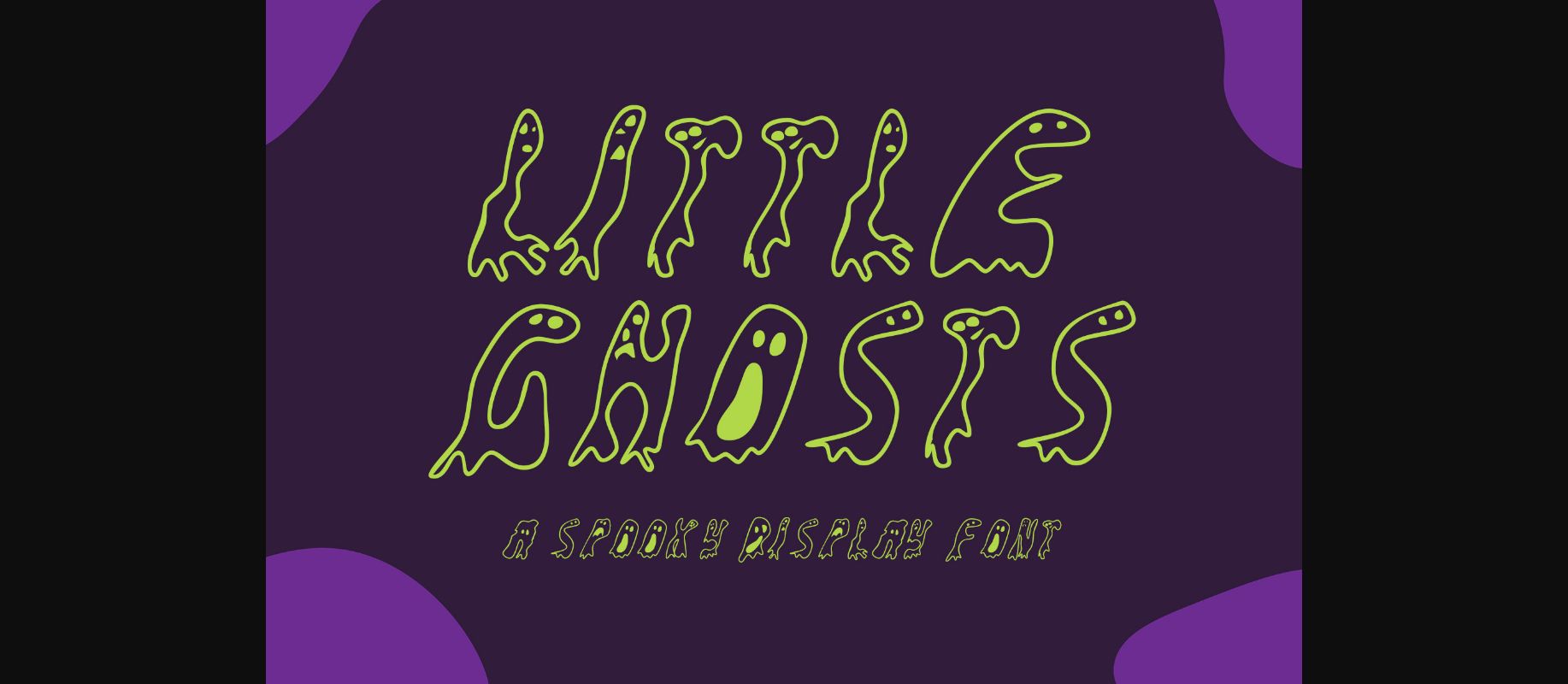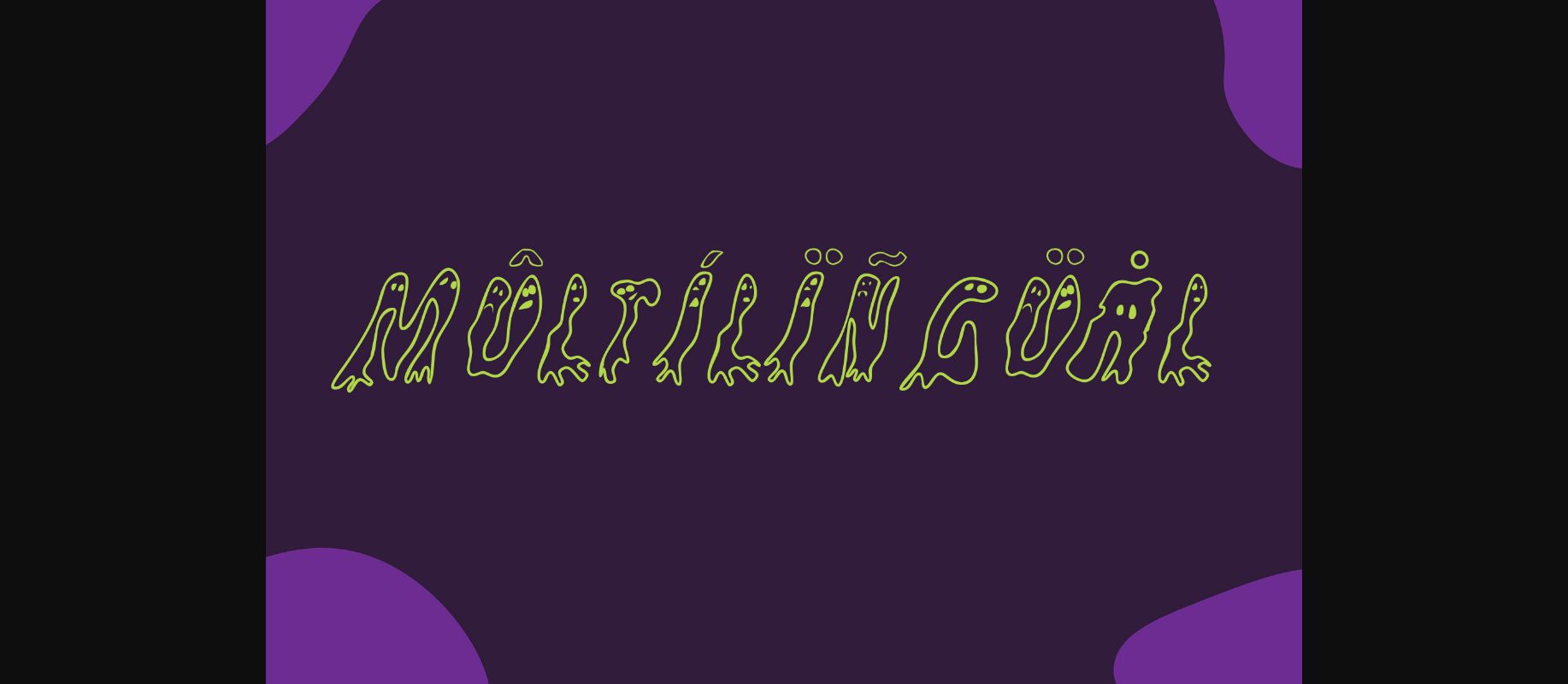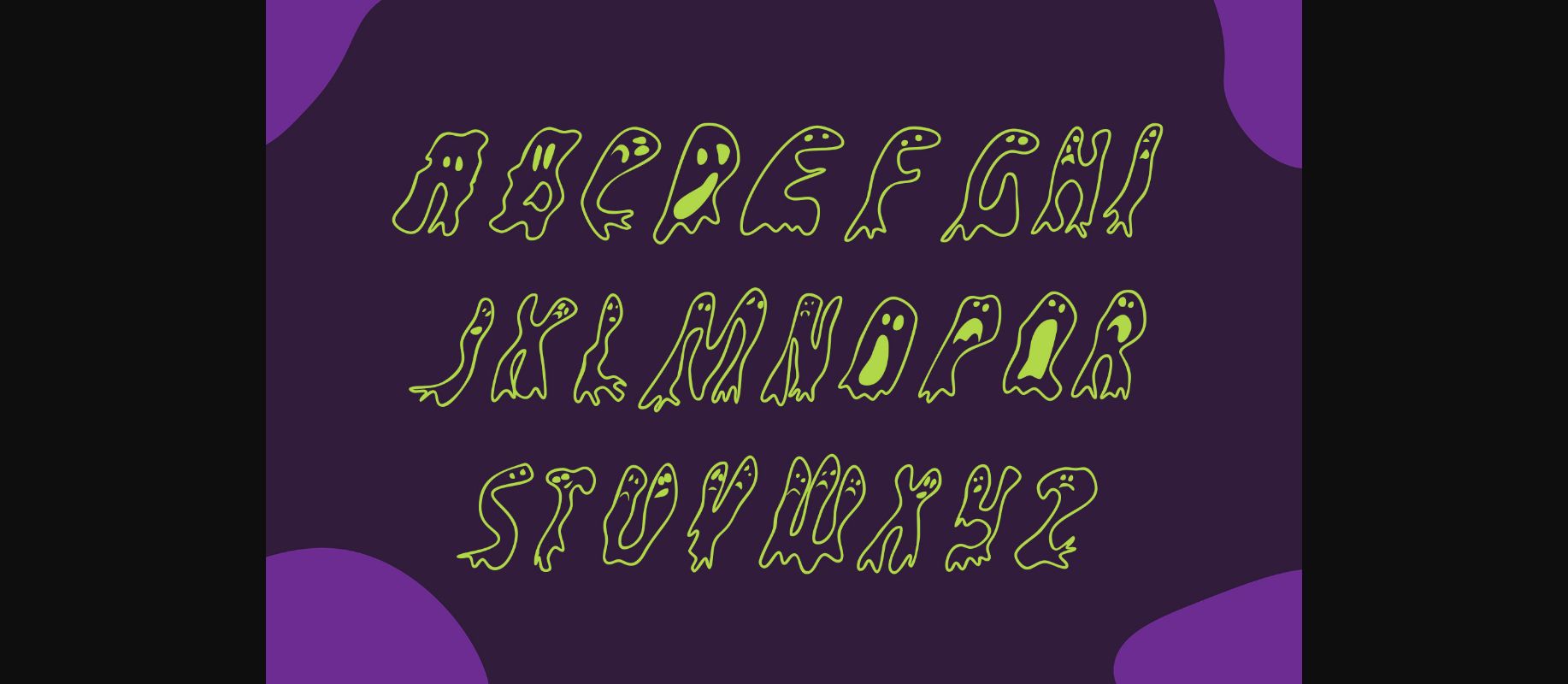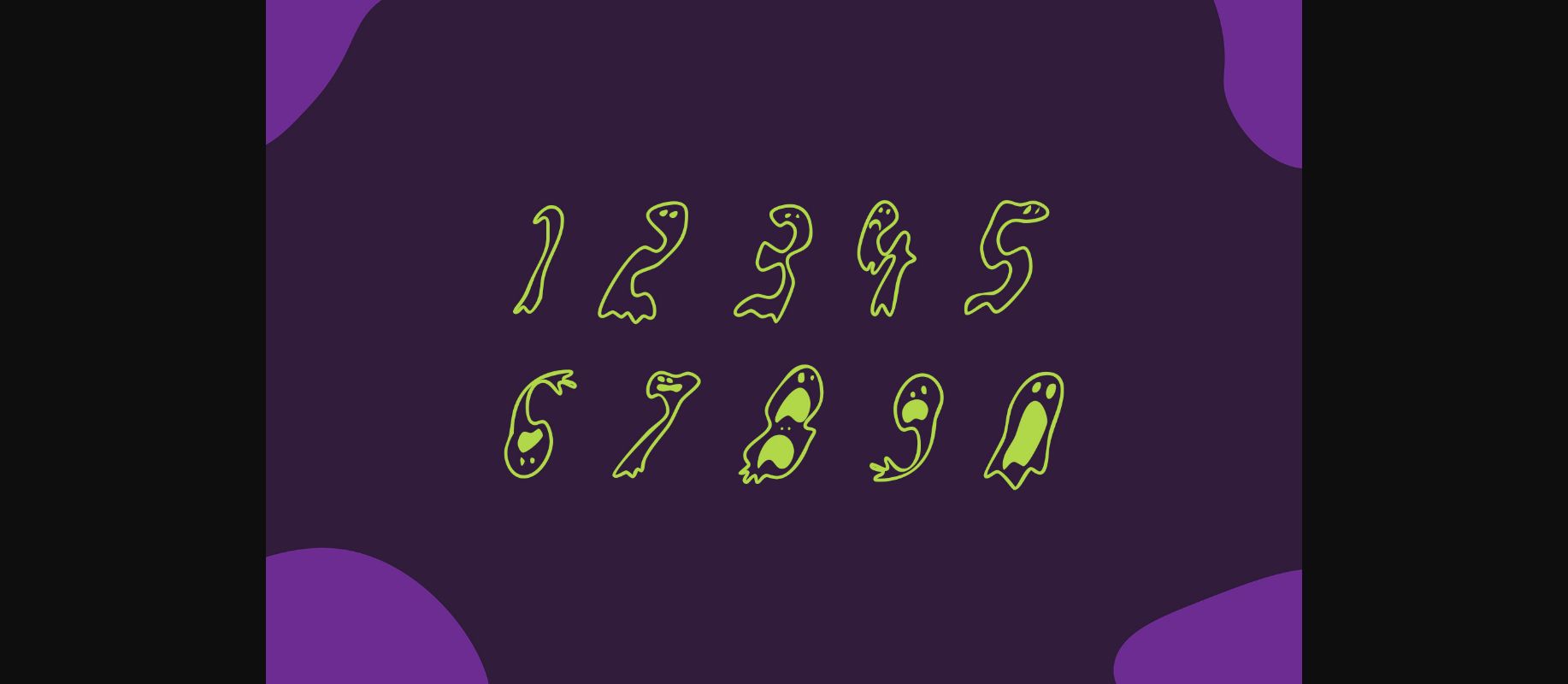
About Little Ghosts Font
Little Ghosts is a cool, spooky and fun decorative font. It embodies playfulness and authenticity and is the perfect choice for any children activity or school project.